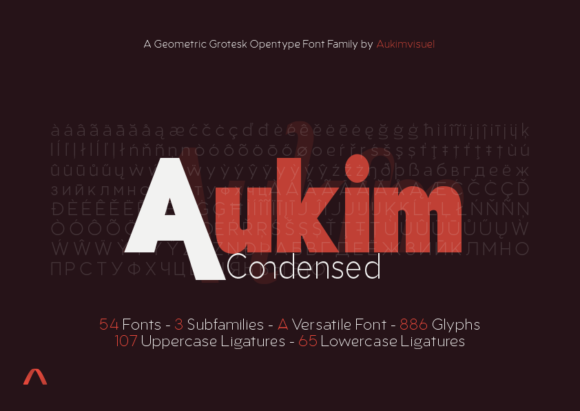
Dive into the captivating world of Aukim, a font that boldly exudes confidence and commands attention. With its thick, assertive letterforms, Aukim stands out from the crowd, making it the perfect choice for designs that demand impact.
Picture your words跃动 off the page in an eye-catching dance, grabbing the attention of all who lay their eyes upon it. Aukim's assertive stance transforms ordinary text into captivating masterpieces, leaving a lasting impression on your audience.
Let your creativity soar as you explore the endless possibilities of Aukim. Its versatility knows no bounds, lending its bold charm to a myriad of projects. Whether you're crafting stunning posters, eye-catching flyers, or any printed masterpiece, Aukim empowers you to make a statement.
But what truly sets Aukim apart is its ability to transform your words into a visual symphony. Its thick, assertive letterforms create a sense of movement and energy, drawing your audience into the heart of your message.
With Aukim, you have the power to:
* Design captivating posters that demand attention
* Craft flyers that entice and inspire
* Create printed materials that leave a lasting impression
* Express your creativity with a font that knows no limits
Open the door to a world of bold, assertive typography with Aukim. Let its thick, confident letterforms elevate your designs and captivate your audience.